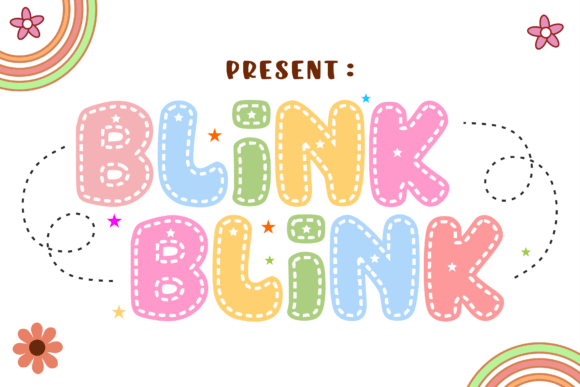
The Blink Blink Font: A Playful and Colorful Decorative Font
Have you ever been working on a design project, and suddenly, you’re stuck on finding the perfect font? I recently had this experience while creating a children’s book, and that’s when I stumbled upon the Blink Blink font. This playful and colorful decorative font has been a game-changer for my designs, and I’m excited to share my experience with you.
A Personal Design Moment: Finding the Right Font
I was working on a children’s book project, and I needed a font that would capture the playful and imaginative spirit of the story. I tried several fonts, but none of them seemed quite right. That’s when I discovered Blink Blink, and it instantly brought the story to life. The stitched outlines and whimsical star cutouts added a touch of handmade charm that I was looking for.
- Playful and colorful design that adds a touch of whimsy to any project ✅
- Stitched outlines and star cutouts create a soft, handmade charm ✨
- Perfect for children’s books, birthday invitations, educational materials, and fun branding 📚
- Easy to read and understand, even for younger audiences 👧
- May not be suitable for formal or professional projects ⚠️
- Some characters may not be suitable for use at very small sizes 📝
- Experiment with the OpenType features, such as the stitched outlines and star cutouts, to add visual interest to your design.
- Explore the glyphs and stylistic alternates to add variety to your design.
The Designer Inspiration Behind Blink Blink
The Blink Blink font was designed with the intention of creating a playful and colorful decorative font that would bring joy to designs. The designer, inspired by the whimsy of children’s books and the charm of handmade crafts, created a font that’s perfect for adding a touch of personality to projects.
Q: What type of projects is Blink Blink suitable for?
A: Blink Blink is perfect for children’s books, birthday invitations, educational materials, and fun branding.
Q: Is Blink Blink easy to read?
A: Yes, Blink Blink is designed to be easy to read and understand, even for younger audiences.